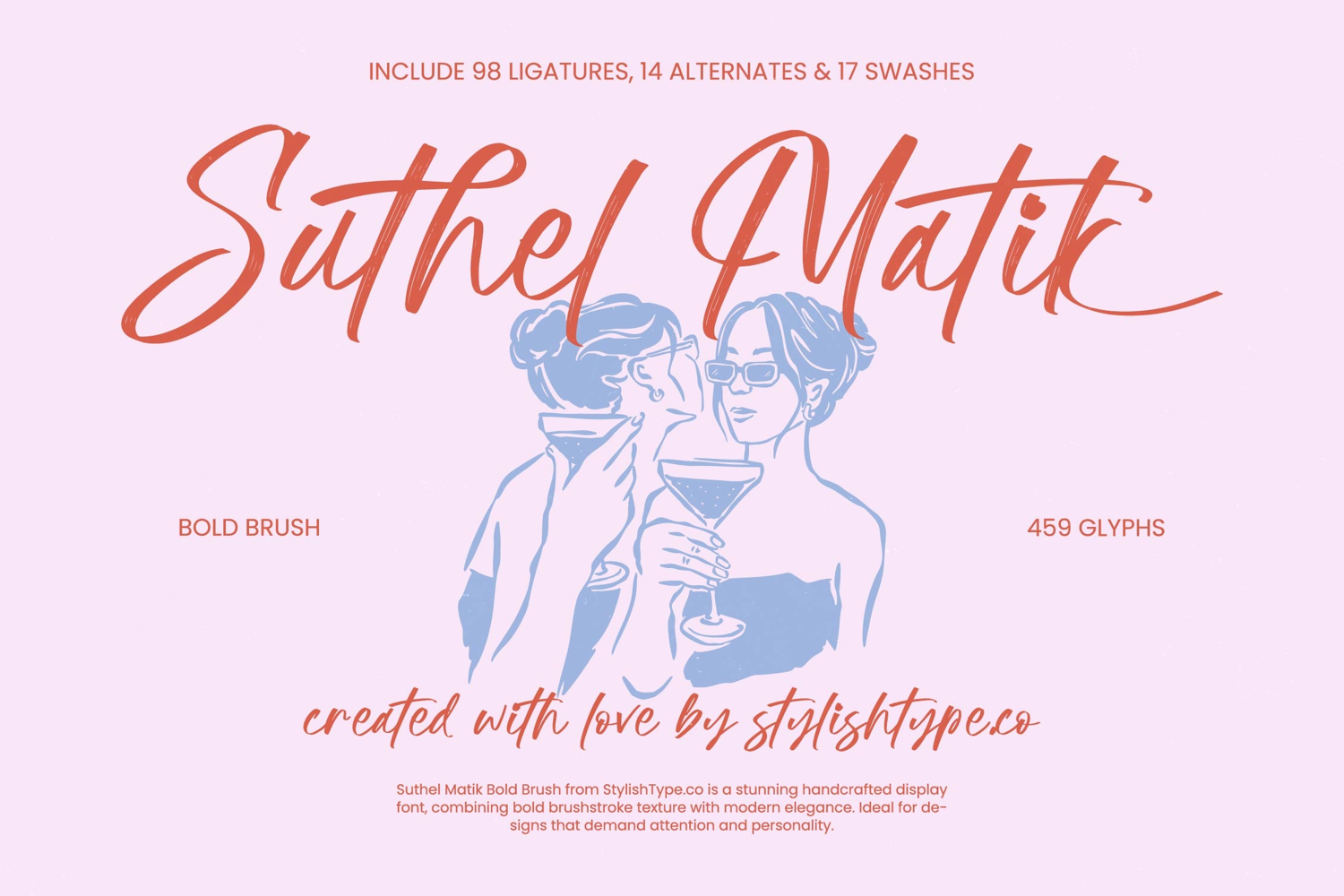
Suthel Matik - Bold Brush Font
Suthel Matik
Suthel Matik Italic
Unlock unparalleled typographic creativity using its comprehensive suite of OpenType features. With over 450 glyphs, 98 sophisticated ligatures, 14 stylistic alternates, and 17 dramatic swashes, Suthel Matik - Bold Brush Font provides the tools needed for truly bespoke lettering. Designers can effortlessly customize every headline and logotype, ensuring that each piece of copy feels uniquely hand-drawn and maintains a seamless, natural flow.